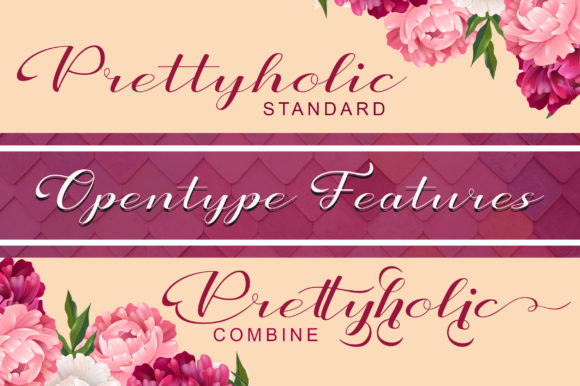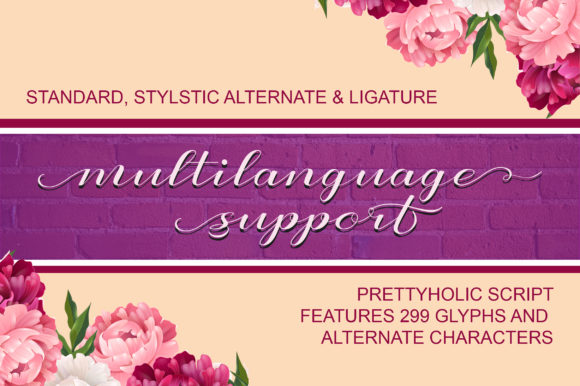
Freebie Wednesday: Prettyholic Font
Prettyholic is a clean, classic, feminine handcrafted font with a varying baseline. It’s free at Creative Fabrica for another 5 days so you better make sure you don’t miss out!